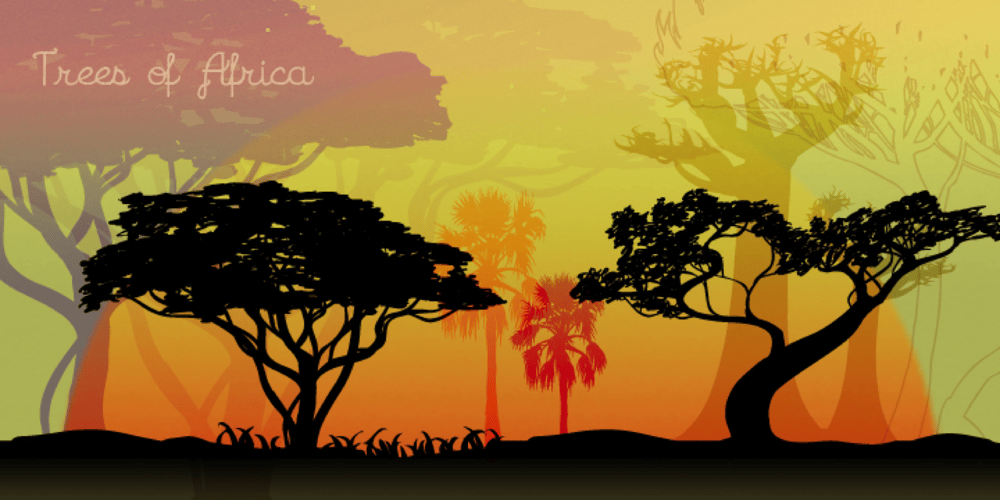
Trees Of Africa Font Family was designed by Natsuko Hayashida and published by Okaycat. Trees Of Africa contains 1 styles and family package options. Very nice assorted African trees silhouetted, including baobab, palm trees, & more. Great for making shadow picture graphics. Also outlines are included. Illustrations are included for letters A-Z, a-z, numbers 1-9, and some punctuations.